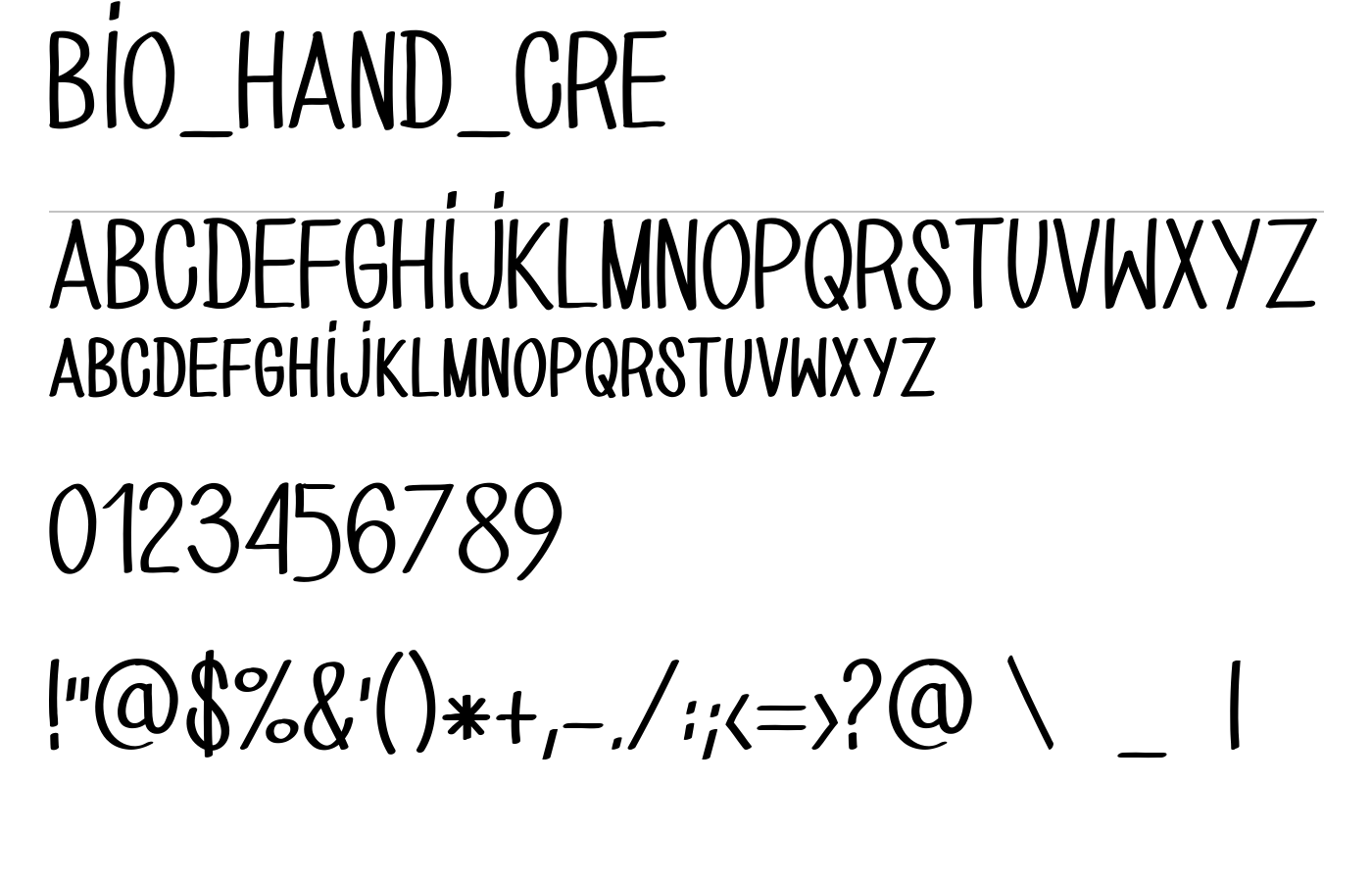
BIO_HAND_CRE is a playful, hand-drawn sans serif font with a casual and friendly vibe, featuring tall, narrow letterforms and uneven strokes that create an organic, human touch. Its light weight and irregular character shapes make it ideal for informal designs such as children's books, creative branding, or fun posters where personality and approachability are key. This font works best in headlines or short text where a relaxed, personal style is desired.
BIO_HAND_CRE Font
About BIO_HAND_CRE Font